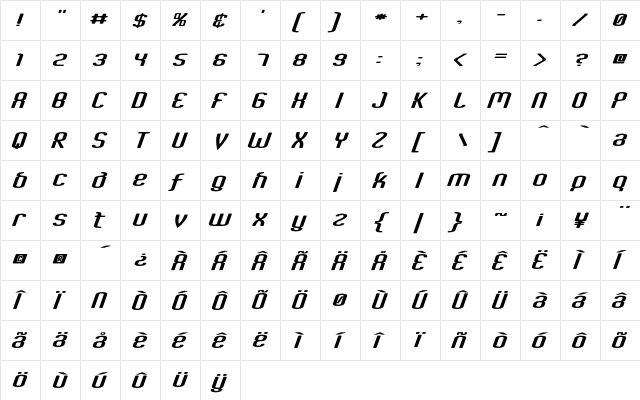
Criminal Italic
Design Context for Criminal Typeface
Criminal is a composed and adaptable typeface that performs quietly and consistently across a wide range of design contexts. The slanted form adds forward momentum and visual energy.
Pro Tip: Use Criminal for emphasis, pull quotes, and subheadings where its slanted energy can add rhythm to the layout.